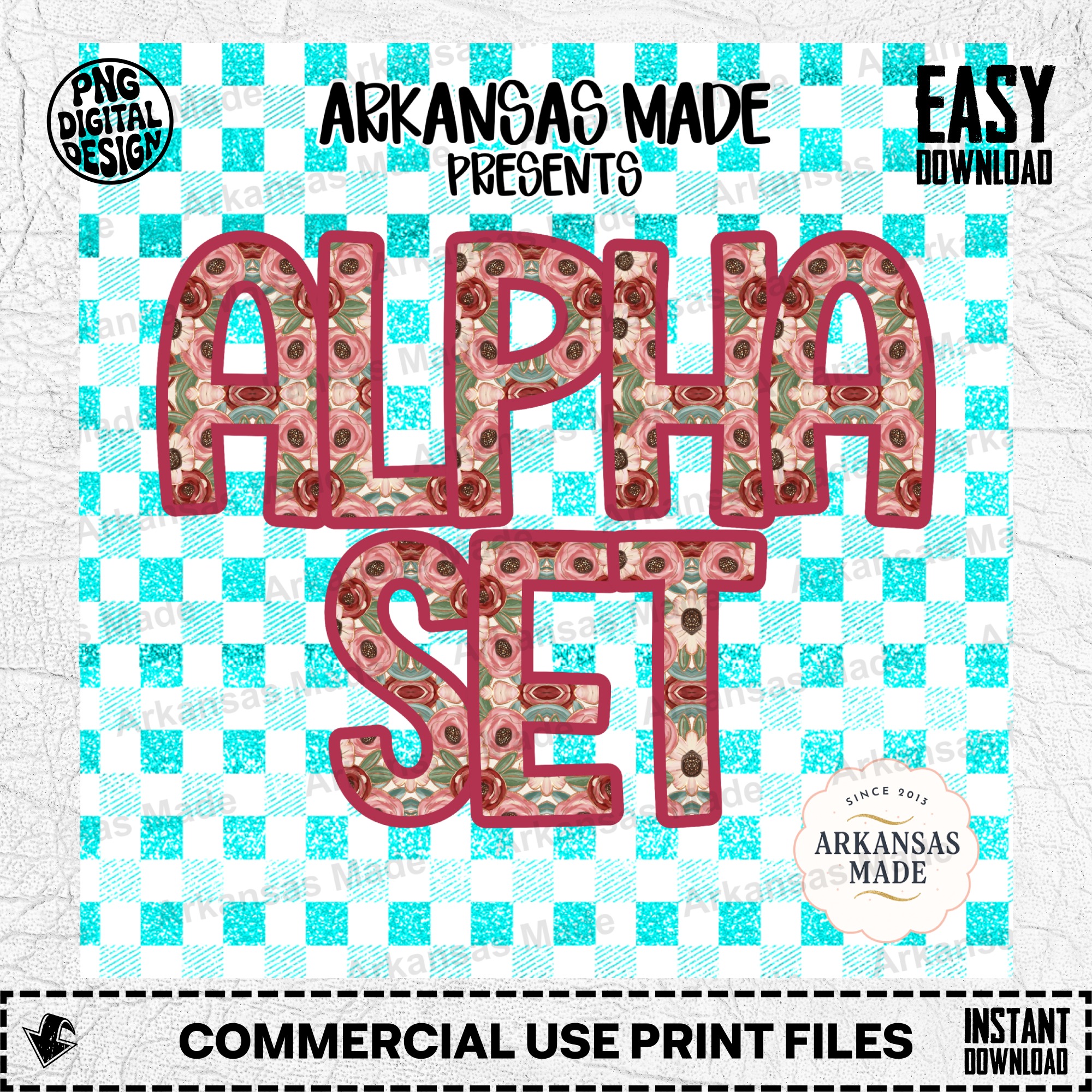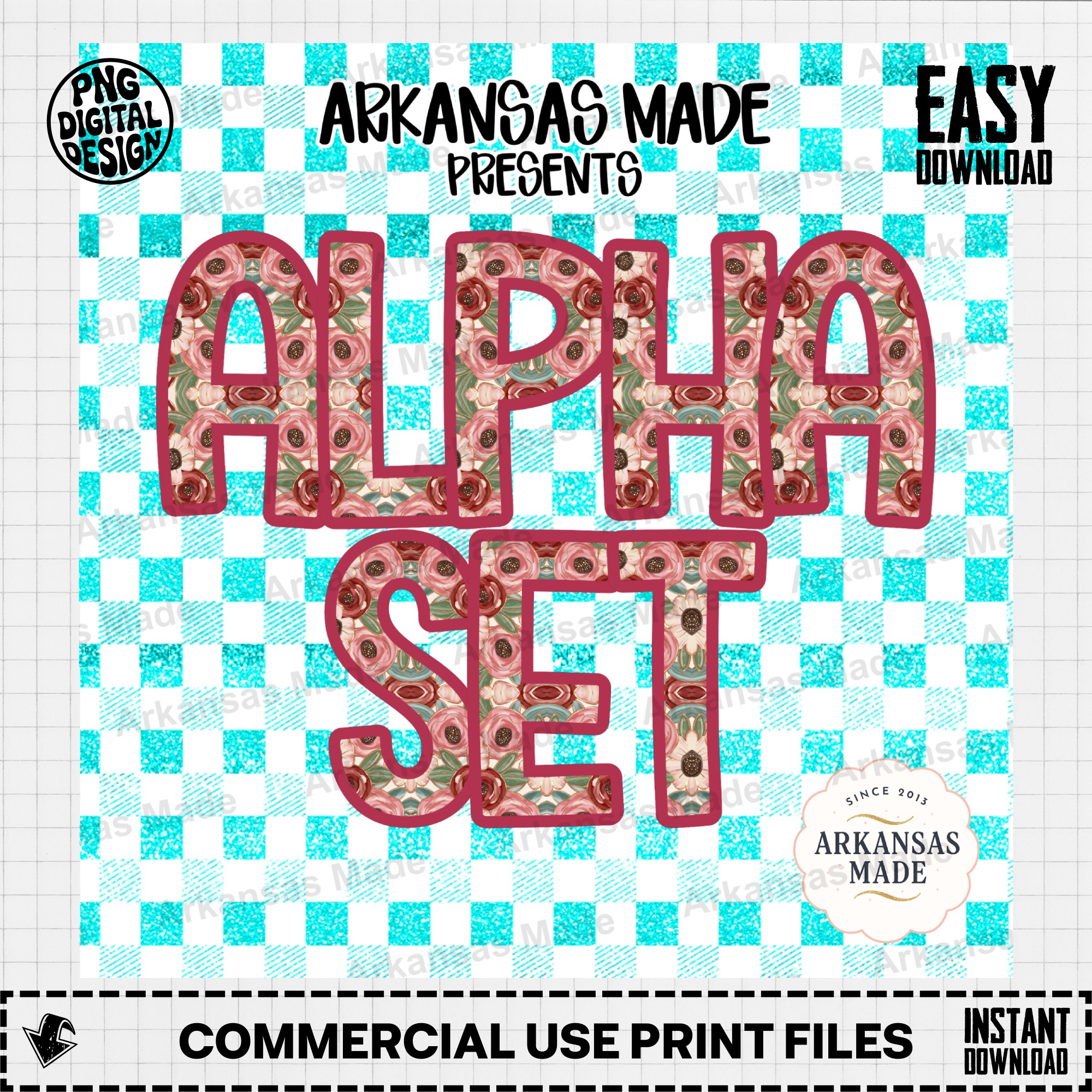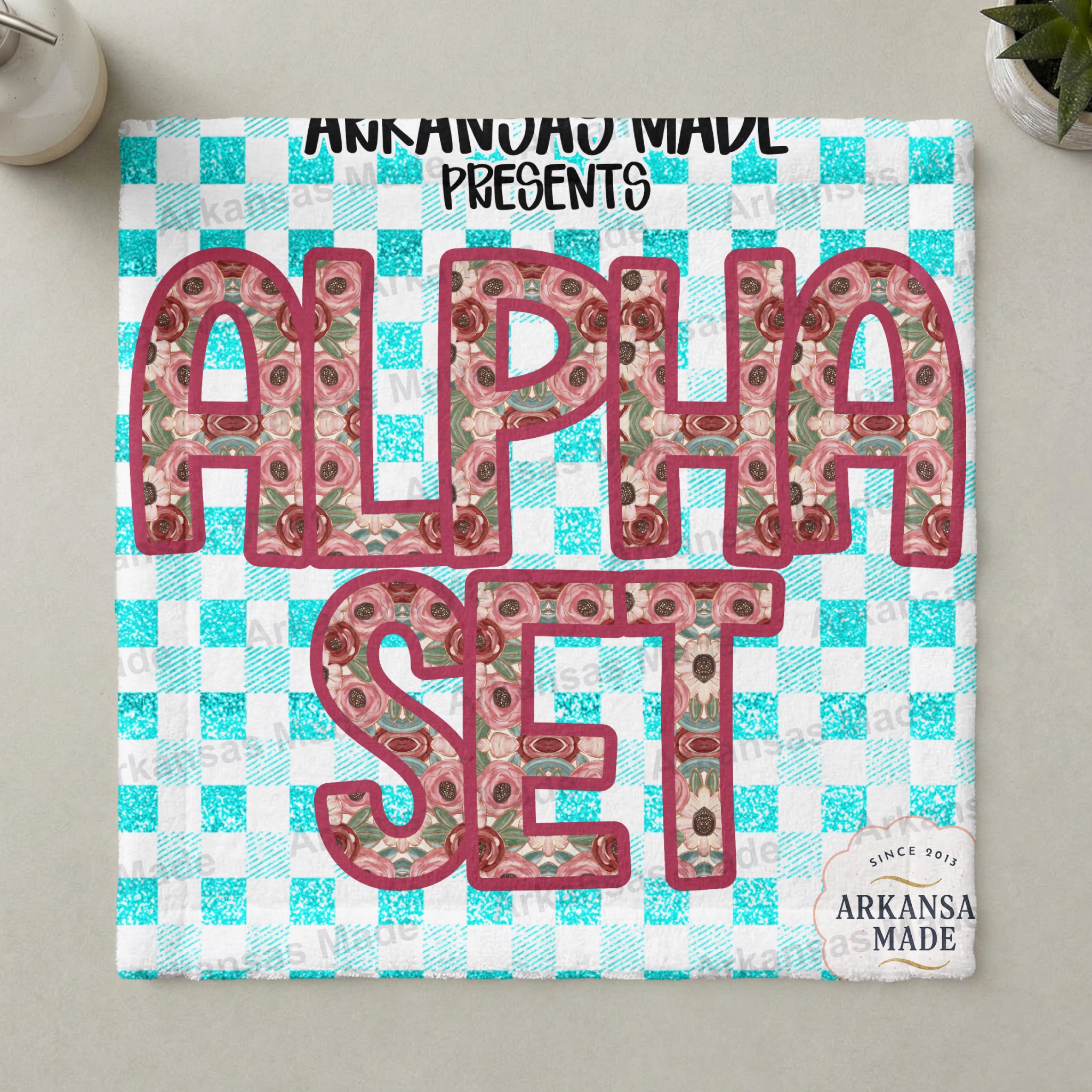
Elevate your creations with this stunning Floral Alpha Set Digital Download! Featuring pink roses, faux gold details, and a vibrant teal faux glitter buffalo plaid, perfect for sublimation. Embrace a charming shabby chic and farmhouse aesthetic with these versatile PNG letters. Ideal for crafters, DIY enthusiasts, and small business owners creating personalized apparel, home decor, or digital art. A fantastic resource for adding a touch of rustic elegance to any project, making unique items for birthdays, anniversaries, or just because.